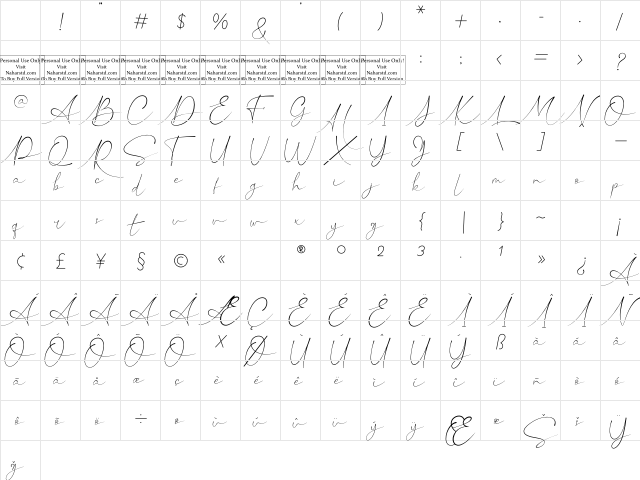
Complete Hillonest Signature Regular glyph index. Displaying only characters natively supported by Hillonest Signature Regular font.
Hillonest Signature is a composed and adaptable typeface that performs quietly and consistently across a wide range of design contexts.
Who designed the Hillonest Signature Regular font?